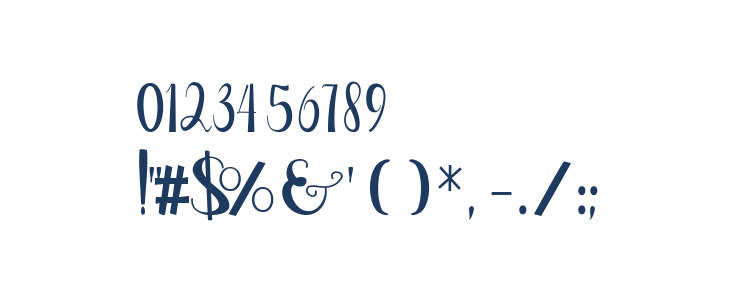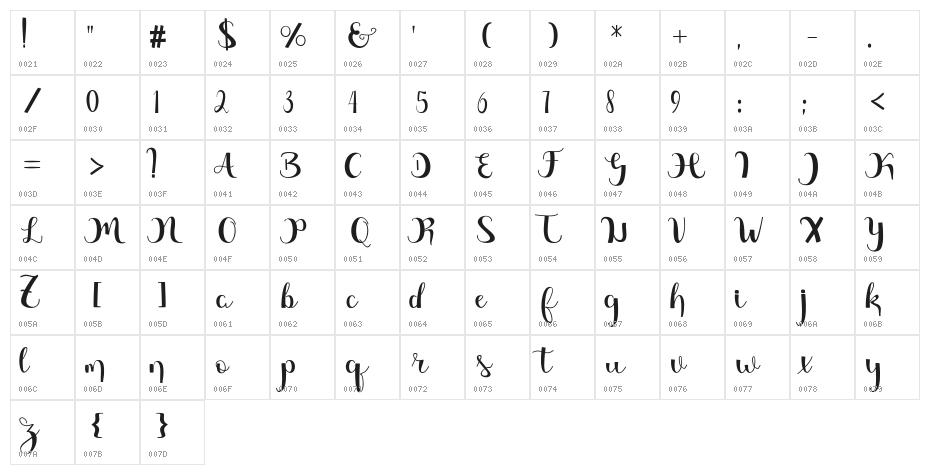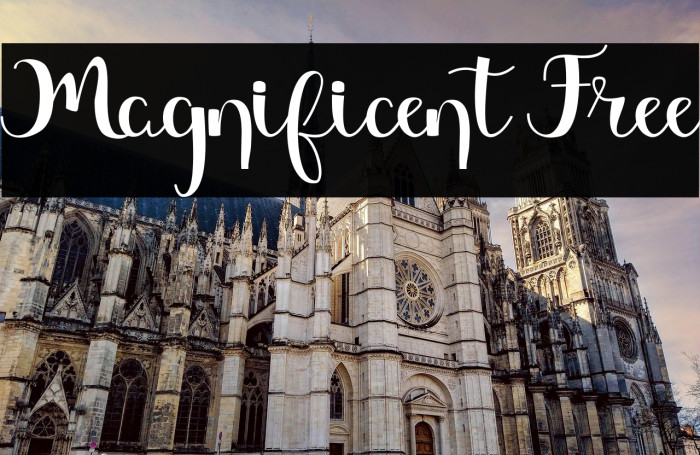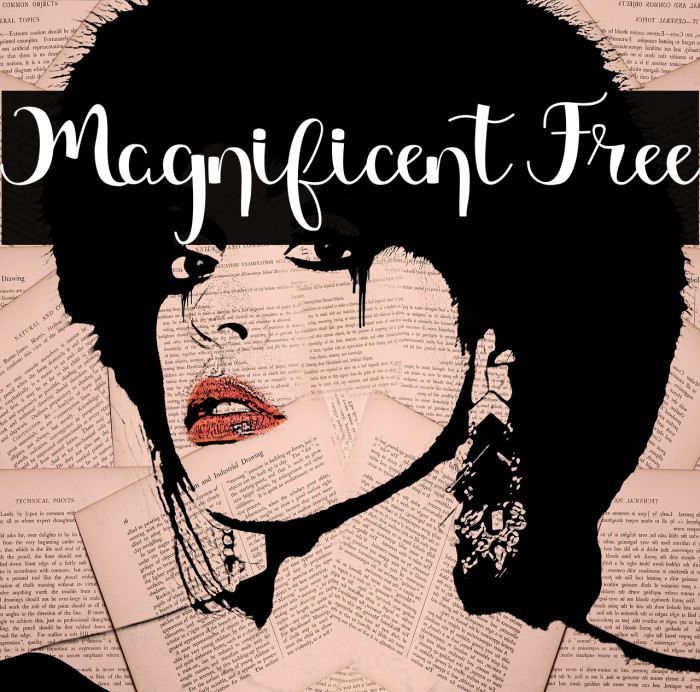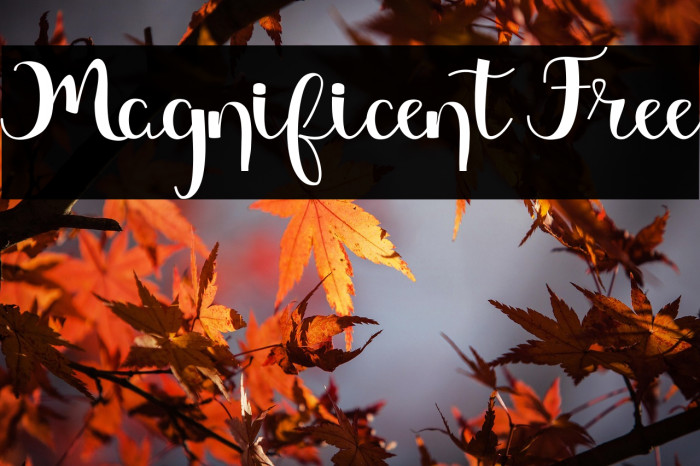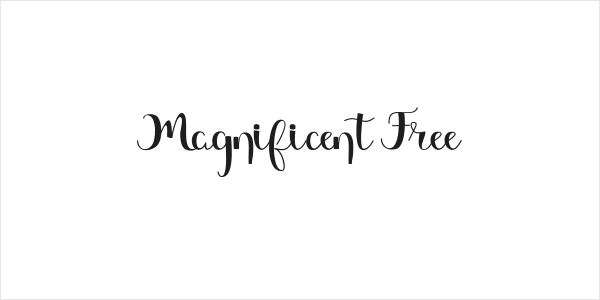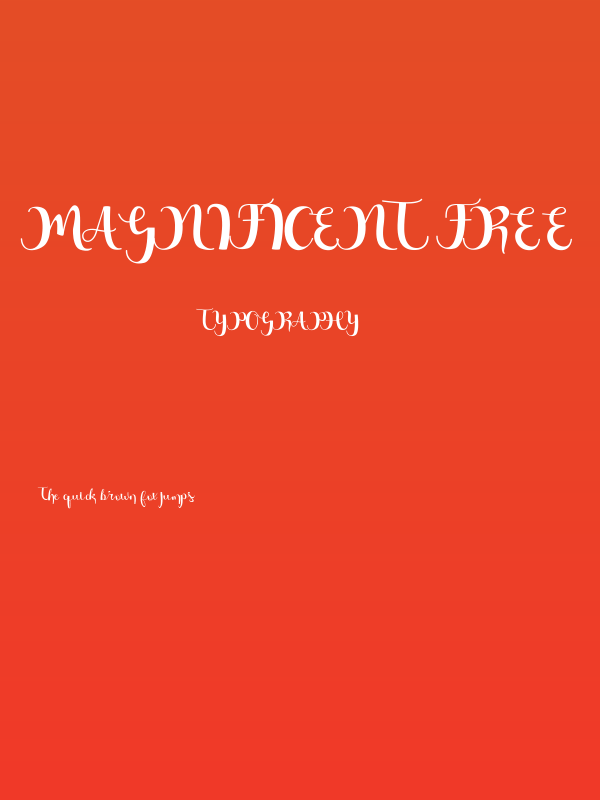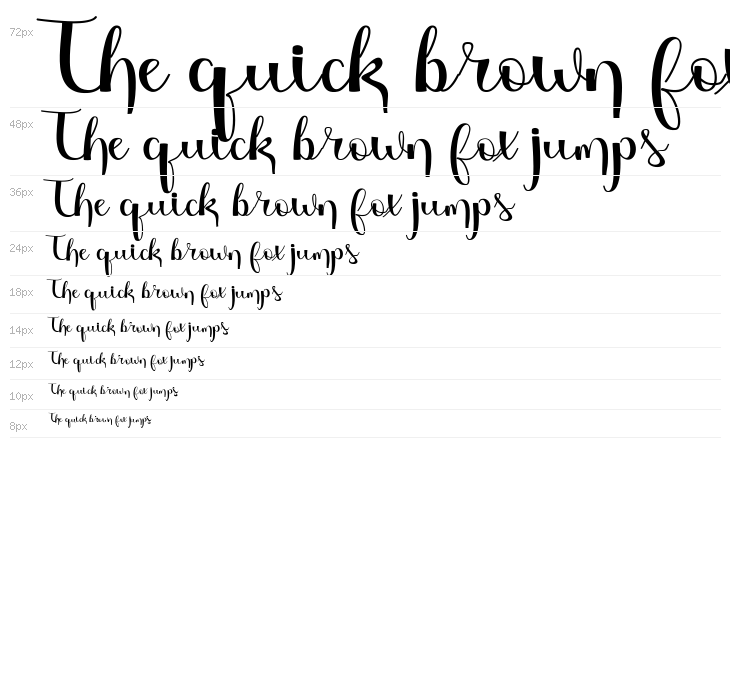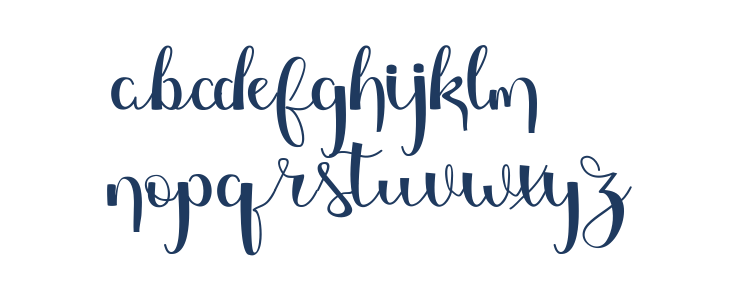
Magnificent Free Font
Magnificent Free Description
This font features a playful and artistic script style with a modern flair. The characters exhibit a flowing, cursive design with varying stroke thickness, adding a dynamic and lively feel. The uppercase letters are bold and expressive, while the lowercase letters maintain a consistent, elegant flow. Numbers and special characters are crafted with the same attention to detail, ensuring a cohesive look across all elements. The font's unique style makes it suitable for creative and decorative applications, where a touch of personality is desired.
Use CaseLogos, Invitations, Creative projects
Proposed ProjectsIdeal for wedding invitations, greeting cards, branding, and creative posters.